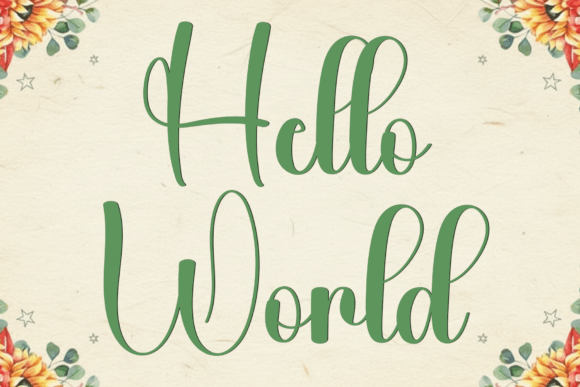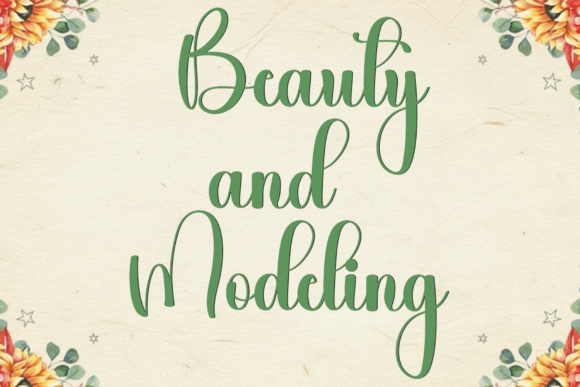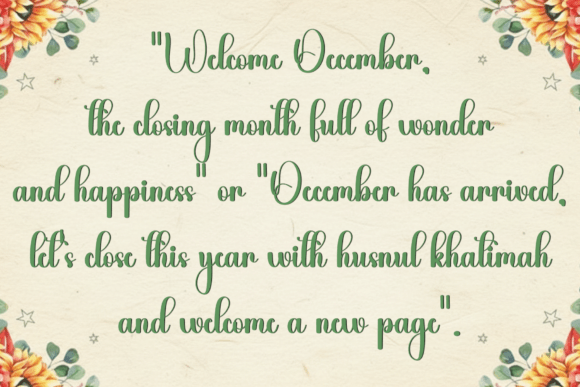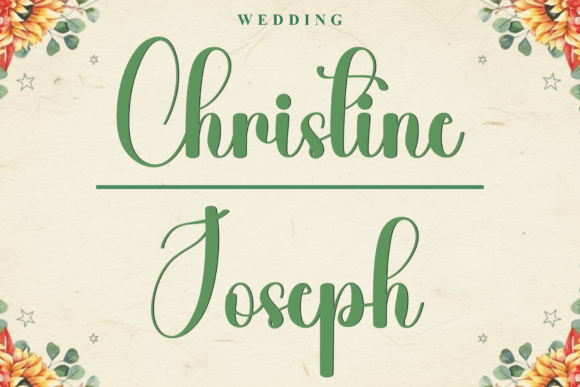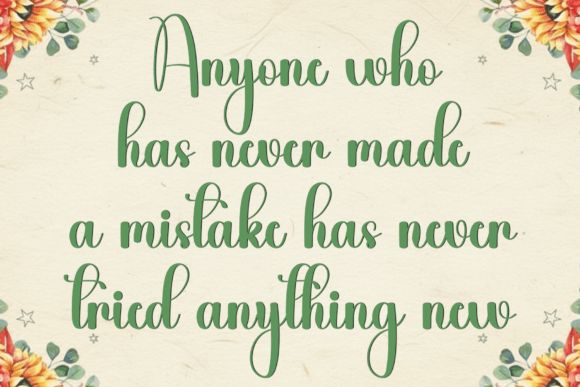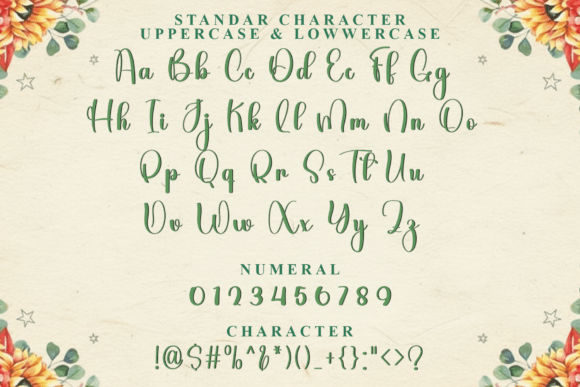
Introduction to Play Round Font
Remember the excitement of unwrapping your first holiday gift as a child? The twinkle in your eye, the rush of joy in your heart? That same sense of wonder and magic can be captured in your creative projects with the enchanting Play Round Font.
As a designer, you know that the right font can make all the difference in bringing your vision to life. And when it comes to holiday-themed projects, you want a font that’s not only high-quality but also captures the festive spirit. That’s where the Play Round Font comes in – a delightful, whimsical typeface that adds a touch of nostalgia and cheer to your designs.
With its decorative elements and PUA encoding, this font is a valuable design resource that’s perfect for greeting cards, gift tags, and other creative projects. And the best part? You can access all of its amazing glyphs and ligatures with ease, making it a must-have for any designer looking to add a little magic to their work.
Key Features of Play Round Font
- High-quality, modern design ideal for creative projects and innovative ideas
- Includes a transparent background, allowing for easy integration into various design elements
- Comes in 4 different font styles (Regular, Bold, Italic, and Bold Italic)
- Unique characteristics: rounded edges, smooth curves, and a playful feel, making it perfect for branding, logos, and creative typography
Honest Review: Play Round Font
I recently stumbled upon the Play Round Font, and I’m excited to share my thoughts on this design resource. As a designer, I’m always on the lookout for high-quality fonts that can elevate my creative projects.
- ✨ The font is incredibly versatile and can be used for a wide range of design applications, from logos to signage.
- ✨ The font features a transparent background, allowing for seamless integration with other design elements.
One of the standout features of the Play Round Font is its unique, rounded design. It adds a touch of playfulness to any project, making it perfect for brands that want to convey a sense of fun and approachability.
- ⚠️ The font may not be suitable for all design applications, particularly those that require a more formal or serious tone.
- ⚠️ Some users may find the font’s rounded design too playful or childish for their taste.
Overall, I’m impressed with the Play Round Font, and I think it’s a valuable addition to any designer’s toolkit. Its versatility, high quality, and free download make it an excellent resource for designers working on creative projects.
The Play Round Font is a high-quality design resource that can be used for various creative projects. It’s a free download that offers a unique and modern look, making it an excellent addition to any design portfolio.
To get the most out of the Play Round Font, consider the following tips:
- Use it for titles and headings to add a touch of modernity to your design.
- Combine it with a transparent background to create a visually appealing design.
- Experiment with different font sizes and colors to find the perfect balance for your project.
The Play Round Font is suitable for a variety of use cases, including:
- Infographics and data visualization